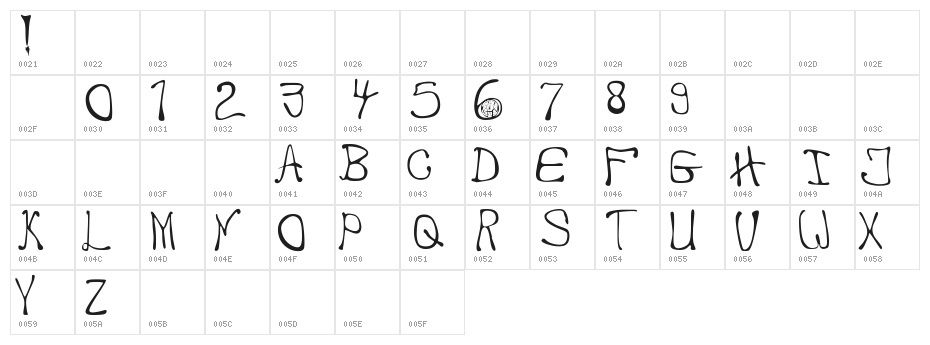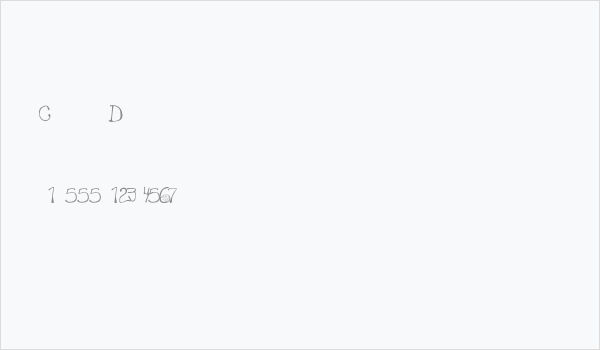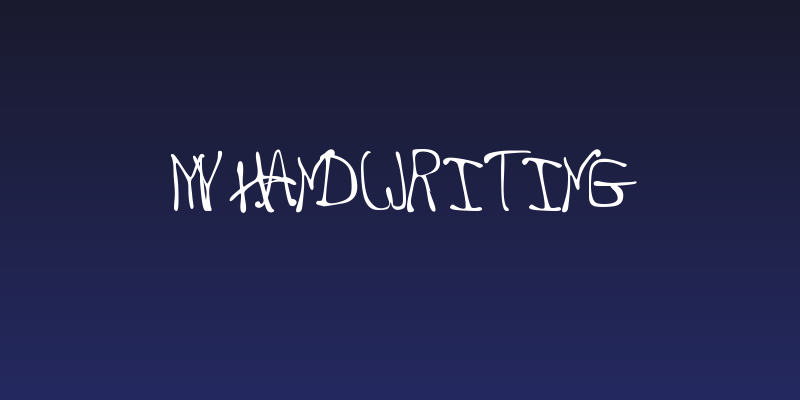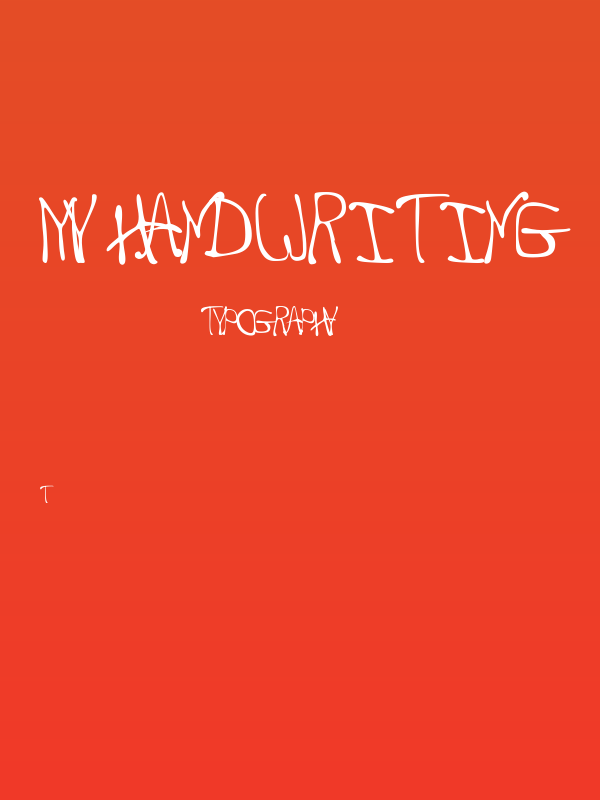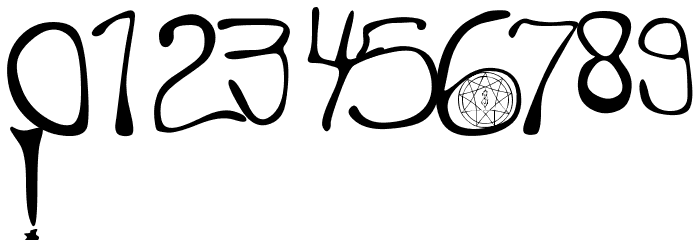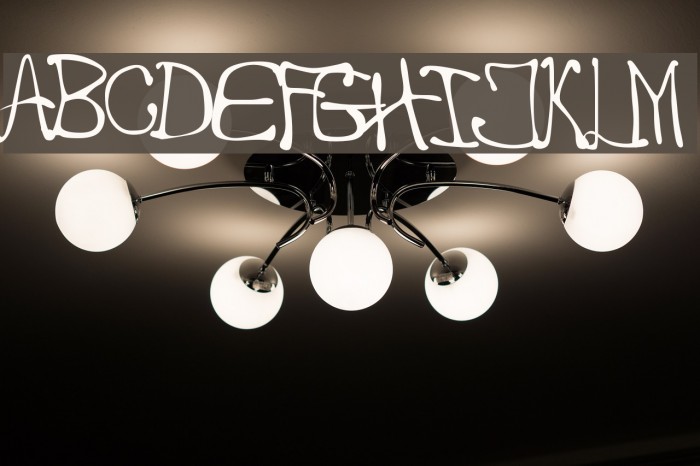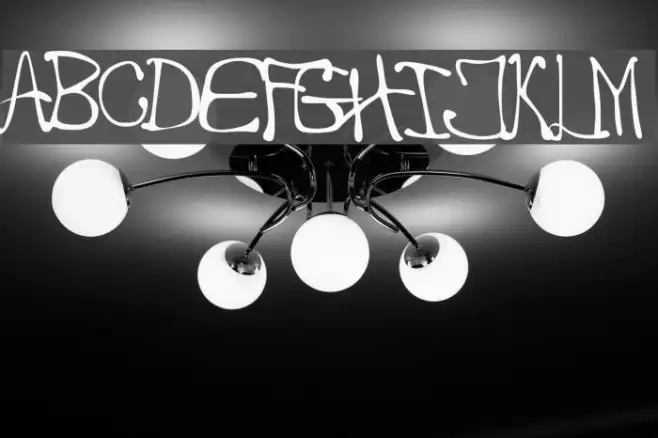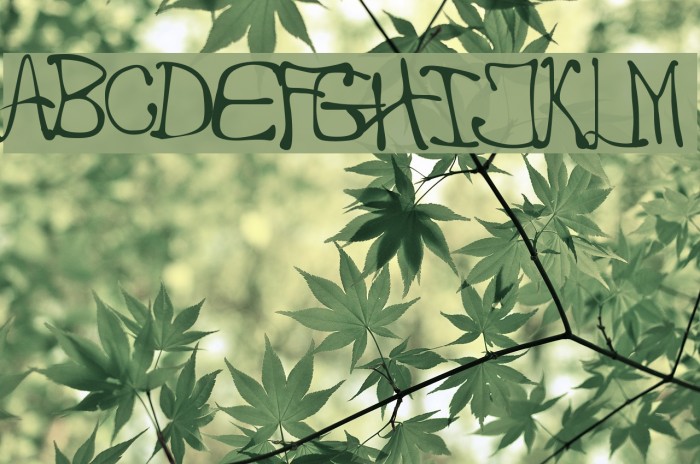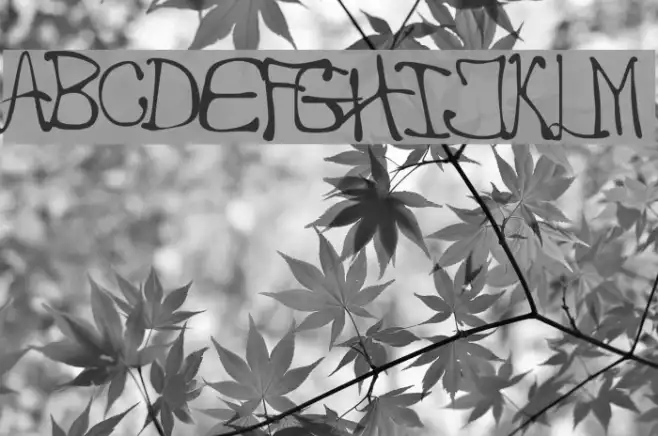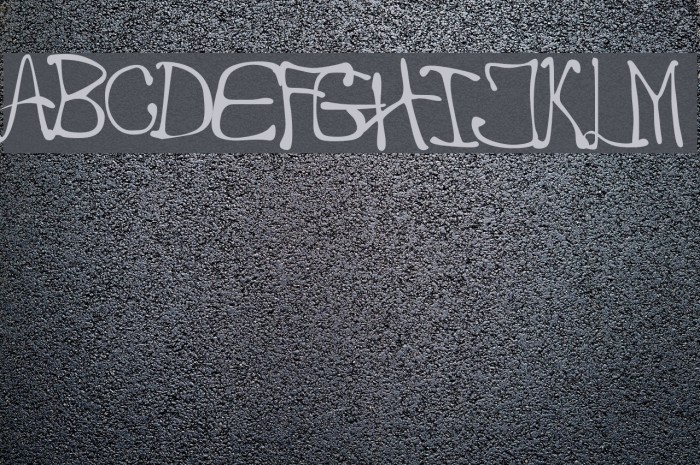
my handwriting Font
This font exhibits a unique, artistic style with a playful and whimsical appearance. The characters are hand-drawn with irregular strokes, giving them a casual and informal look. The uppercase letters are bold and dynamic, with varying line thicknesses that add a sense of movement and energy. The lowercase letters maintain the same playful aesthetic, with some characters featuring loops and curves that enhance the font's quirky personality. The numerals are equally distinctive, with creative shapes that stand out. Special characters are included, adding versatility to the font's use. Overall, this font is perfect for projects that require a personal touch or a creative flair.
| Use Case | Logos, Posters, Creative projects |
| Proposed Projects | Ideal for greeting cards, children's books, creative posters, and artistic branding. |